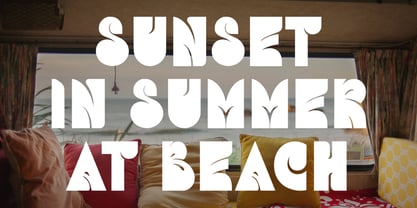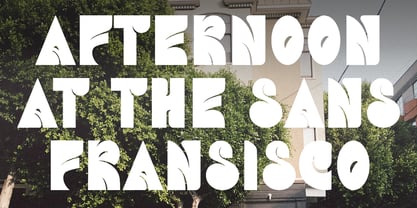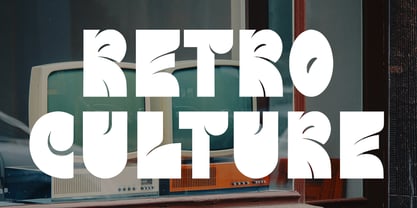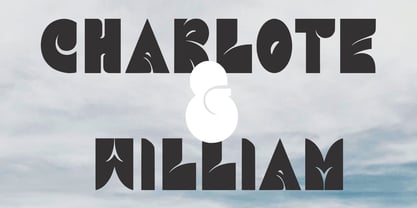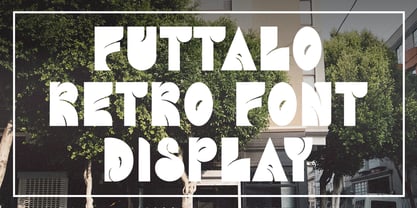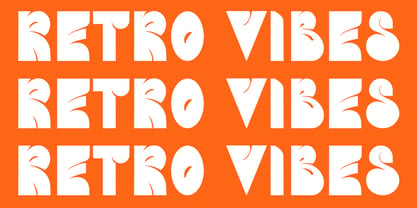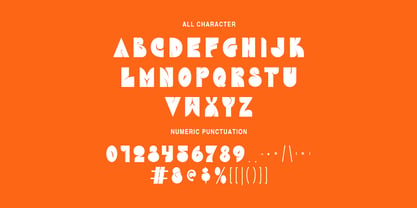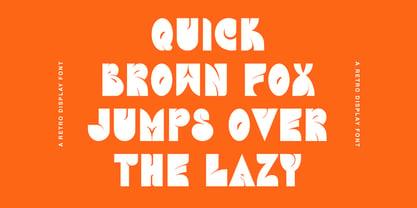
MC Futtalo
by Maulana Creative
The MC Futtalo Font Family was designed by Gilang Maulana and published by Maulana Creative. MC Futtalo contains 1 styles. More about this family
Futtalo is a retro sans display font. With bold stroke and fun character. To give you an extra creative work. Futtalo font support multilingual more than 100+ language. This font is good for logo design, Social media, Movie Titles, Books Titles, a short text even a long text letter and good for your secondary text font with sans or serif. Make a stunning work with Futtalo font.